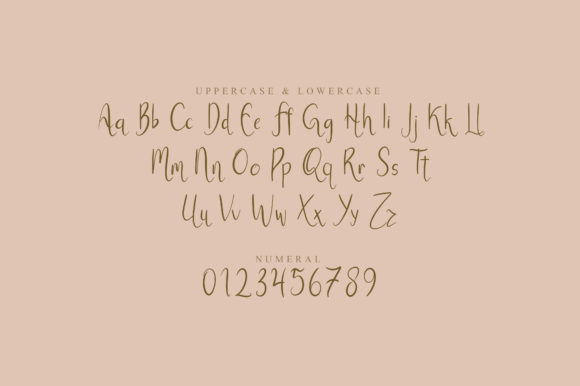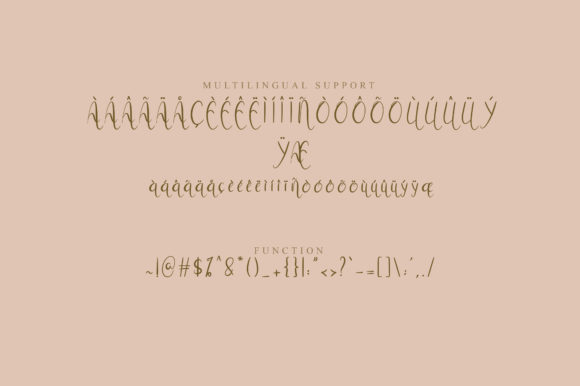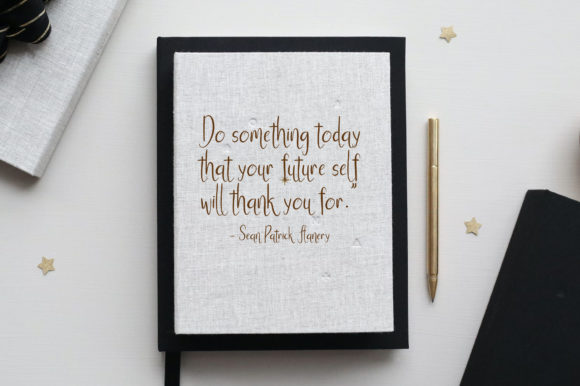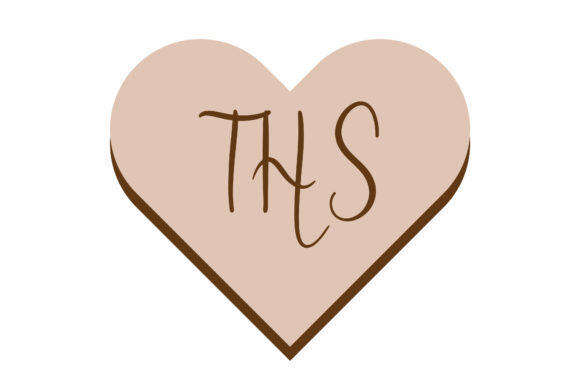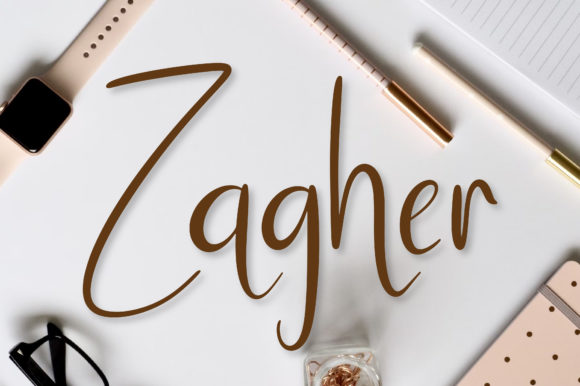
Zagher Script Font
About Zagher Script Font
“Zagher Script” is a lovely and timeless handwritten font that emanates charm and elegance. This font’s captivating and classic appearance makes it an excellent choice for creating eye-catching logos, branding, and quotes.
The font’s handwritten script style carries a sense of authenticity and character. Whether you’re working on projects that demand a touch of timeless beauty, a hint of elegance, or a captivating script aesthetic, “Zagher Script” can enhance your work with its artistically pleasing appearance.
The font’s unique and beautiful touch in every letter adds a personalized and genuine feel to your designs, making them come alive with a touch of individuality.
In essence, “Zagher Script” is more than just a font—it’s a creative resource designed to elevate your design projects. Its lovely and timeless handwritten style, along with its ability to bring your designs to life, make it a valuable tool for designers striving to create designs that are visually appealing, classic, and filled with a touch of elegance, leaving a lasting impression.